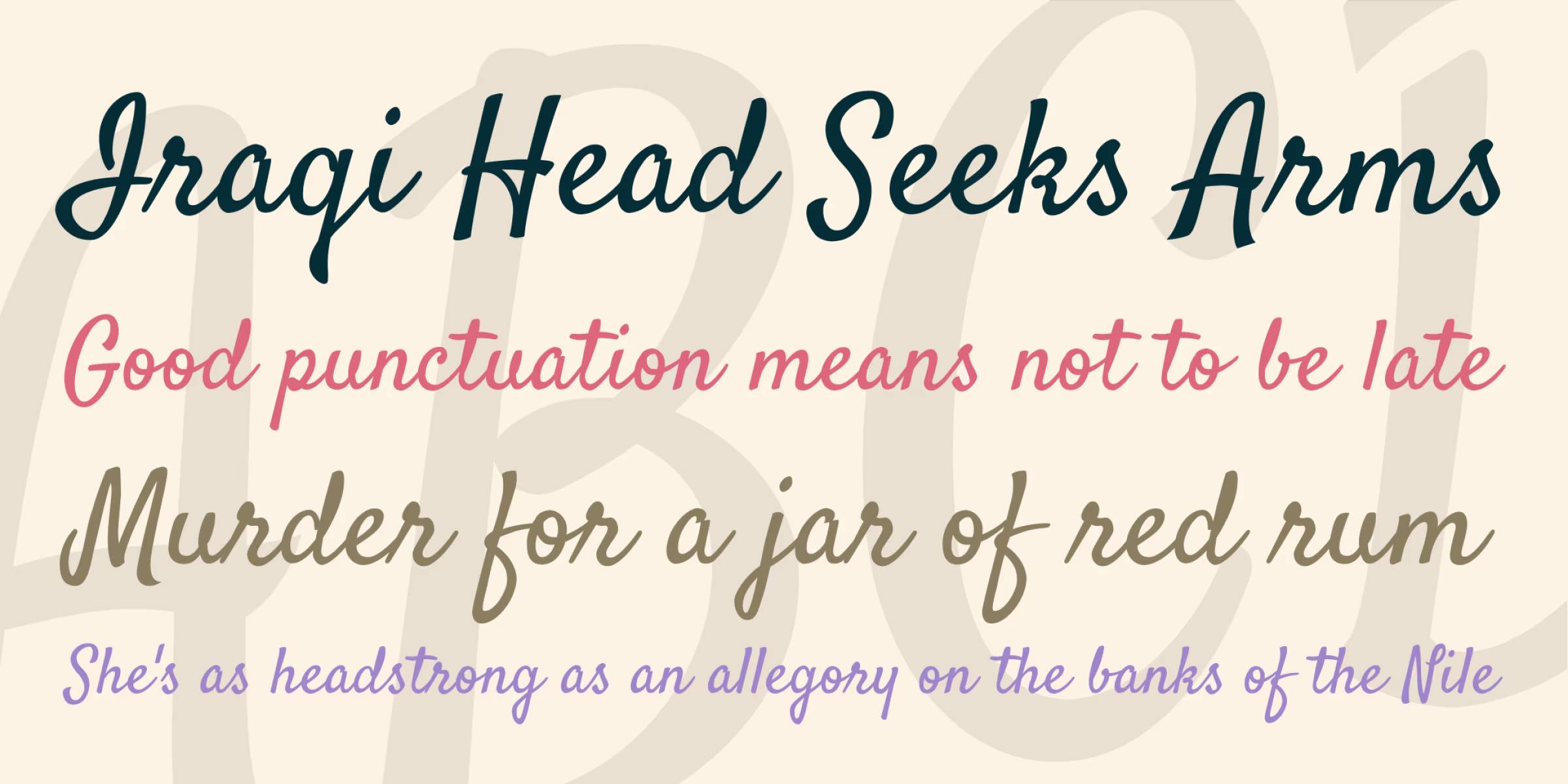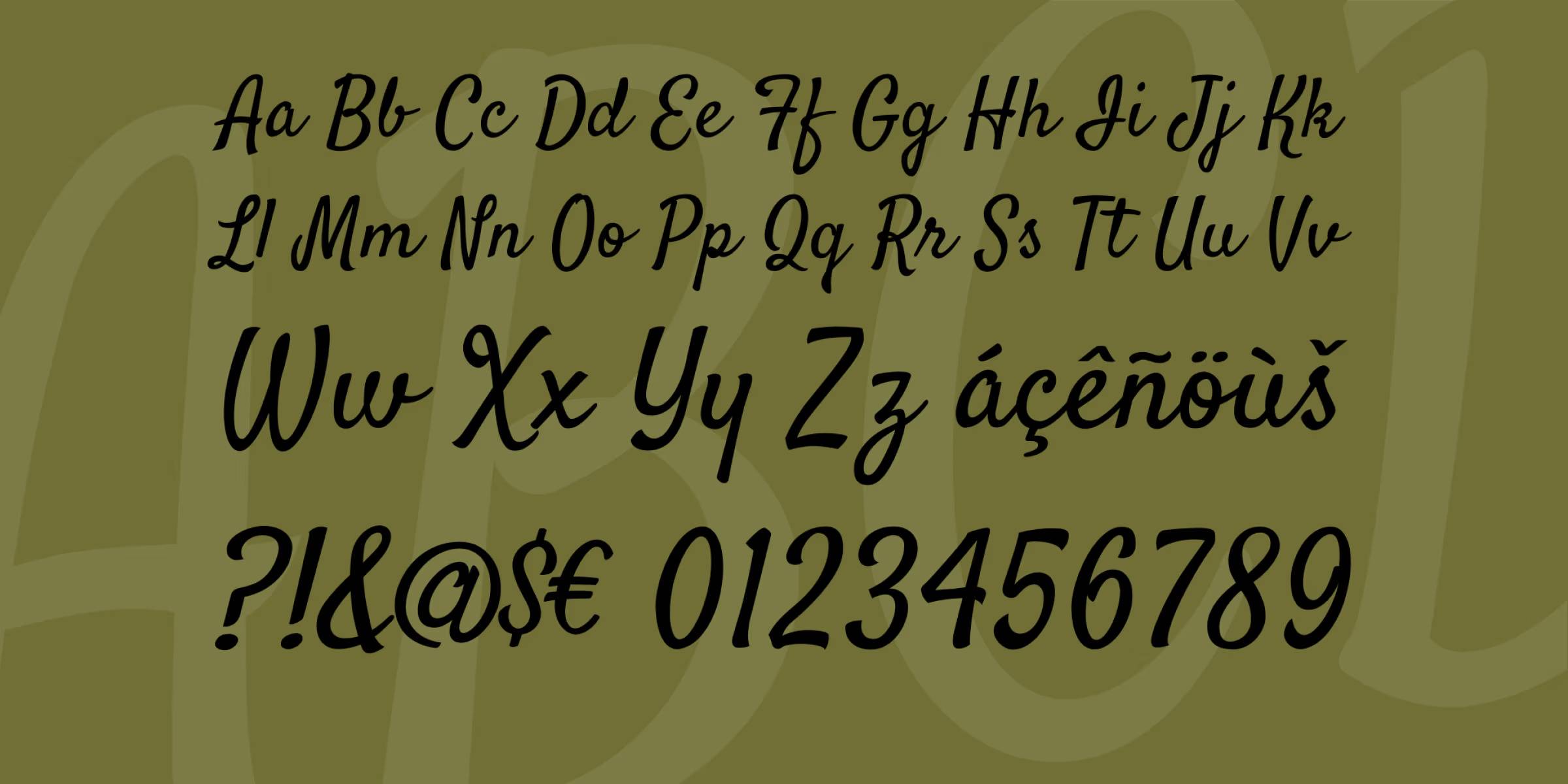
Satisfy Font
Satisfy is a casual, cursive script font with a smooth, flowing style that mimics natural handwriting. Its elegant yet relaxed letterforms give it a charming and friendly feel, making it perfect for creative projects, branding, invitations, and social media graphics. The font strikes a balance between sophistication and playfulness, making it versatile for various design needs.